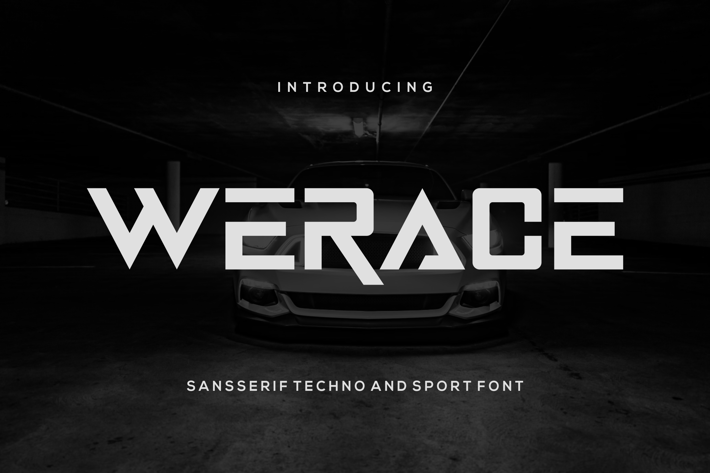
Werace Font
Introducing our new product Werace Font - Modern Font
Werace Font - Modern Font is a bold and authentic display font. The font is suitable for any branding project like logo, esport, and many more. outstanding in a wide range of contexts.